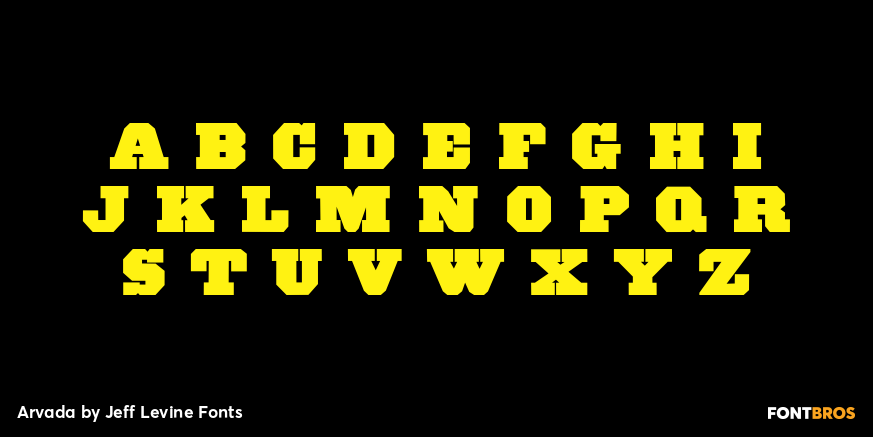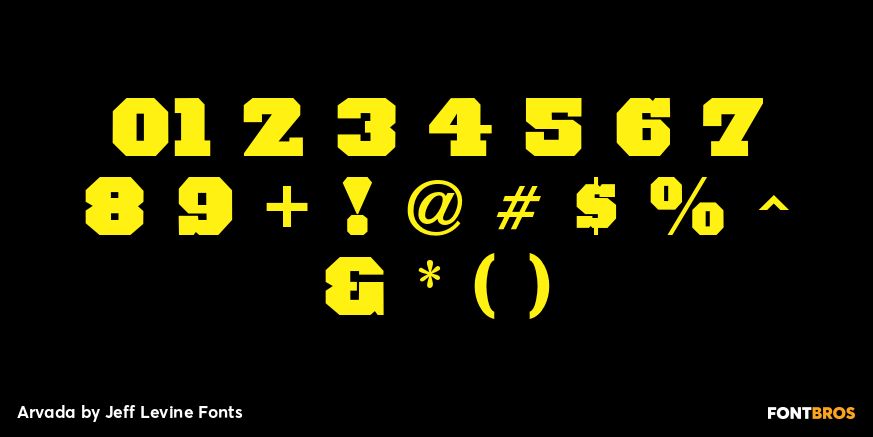
Arvada JNL is Jeff Levine's interpretation of a classic wood type font. Bold, brash and best at large point sizes, this font design also blends well with sports-themed projects.